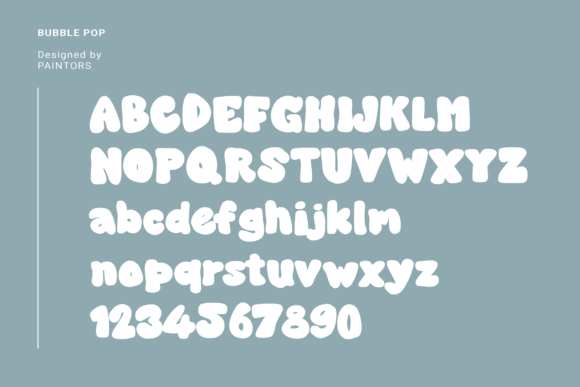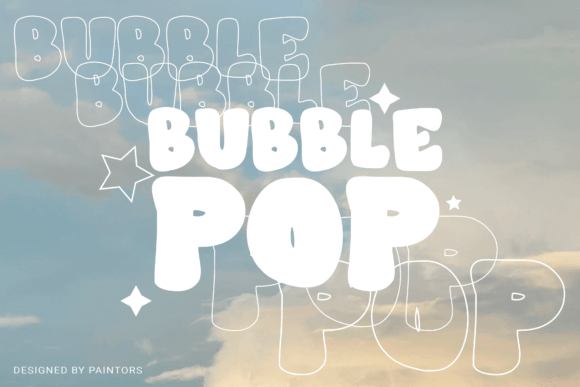
The Joy of Bubble Pop Font: Adding Whimsy to Your Designs
I still remember the time I was working on a children’s party invitation project, and my client asked me to create a fun and playful design that would appeal to both kids and parents. As I began to brainstorm ideas, I realized that the font I chose would make or break the entire design. After scouring through my font library, I stumbled upon Bubble Pop, a whimsical and bold font that instantly brought a smile to my face. In this article, I’ll share with you why I fell in love with Bubble Pop and how you can make the most of this delightful typeface in your designs.
A Personal Review of Bubble Pop Font
What I Love About Bubble Pop ✨
- ✅ Playful and Quirky: Bubble Pop’s unique design makes it perfect for adding a touch of whimsy to any project.
- ✅ Attention-Grabbing: The bold and rounded letters ensure that your headlines and titles will stand out.
- ✅ Versatile: Despite its playful nature, Bubble Pop works surprisingly well for a variety of design projects, from posters to children’s materials.
- ✅ Easy to Read: The font’s clear and simple design makes it easy to read, even in larger blocks of text.
- ⚠️ Limited Formality: Bubble Pop’s playful nature makes it less suitable for formal or professional projects.
- ⚠️ Glyph Limitations: While the font has a range of glyphs, it may not have all the special characters you need for certain projects.
The Backstory of Bubble Pop Font
Bubble Pop was designed by a team of creatives who wanted to create a font that would bring joy and playfulness to designs. Inspired by childhood memories of blowing bubbles and watching them pop, the team aimed to capture the whimsy and fun of this simple pleasure in their font. With its bold and rounded letters, Bubble Pop is sure to put a smile on your audience’s face.
| Font Name | Bubble Pop Font |
| Author | PAINTORS |
Q: What type of projects is Bubble Pop best suited for?
A: Bubble Pop is perfect for designs that require a playful and whimsical touch, such as children’s materials, posters, and party invitations.
Q: Is Bubble Pop a difficult font to read?
A: No, Bubble Pop is surprisingly easy to read, even in larger blocks of text. Its clear and simple design makes it perfect for designs that require a bit of whimsy without sacrificing readability.